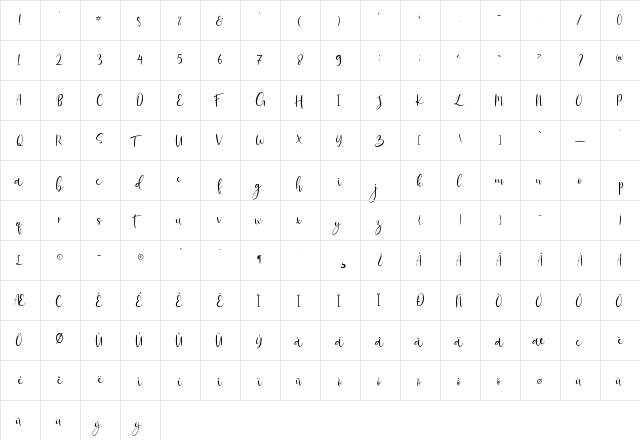
Banitta Script Regular
Design Context for Banitta Script Typeface
Banitta Script flows with the natural rhythm of handwritten lettering, making it ideal for designs that call for warmth and personal expression.
Font Pairing: Combine Banitta Script with a simple geometric sans for maximum contrast — the tension between flowing curves and clean structure is a classic typographic pairing.
Pro Tip: Pair Banitta Script with a clean sans-serif for supporting text. The contrast between fluid script and geometric structure creates an elegant typographic hierarchy.